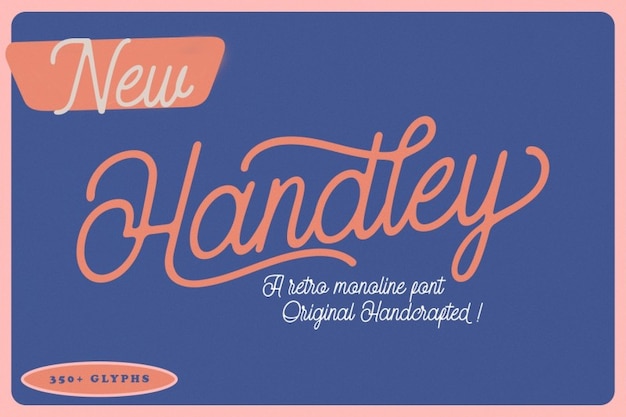
Handley Font
TypeTemp Studio
Handley is a font that effortlessly channels the retro charm of handwritten lettering. Its characters capture the nostalgic essence of a bygone era, evoking a sense of authenticity and personality in your text. Whether you're working on vintage designs, posters, or any project that craves a touch of retro allure, Handley seamlessly infuses your work with a delightful and handcrafted quality. This font embodies the spirit of a bygone era and the craft of hand-lettering, making it an ideal choice for those who want to infuse their projects with a dose of authentic and retro charm.
Handley Regular (400)
Handley Regular (Rough) (400)
Handley Regular (Stamp) (400)